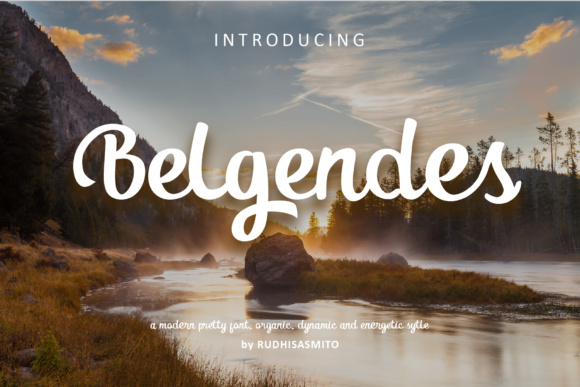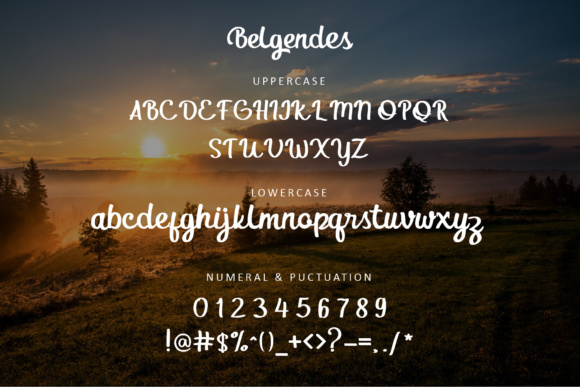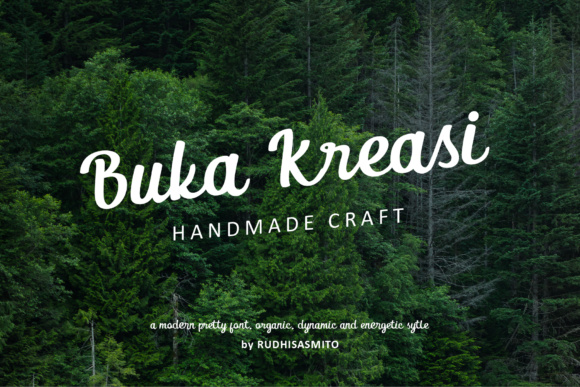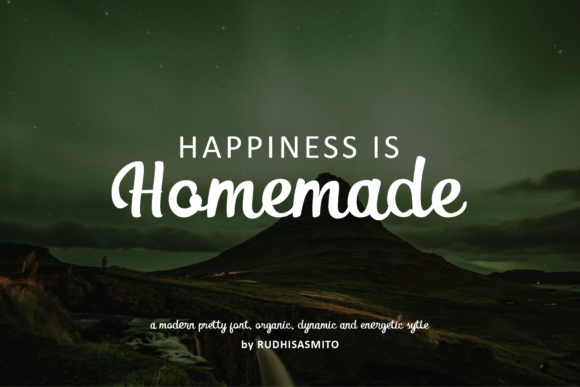
Belgendes Font
About Belgendes Font
Belgendes is a beautiful modern calligraphy font, ideal for use in headlines and more. This font has an organic and energetic style, and works best in large formats where it stands out.